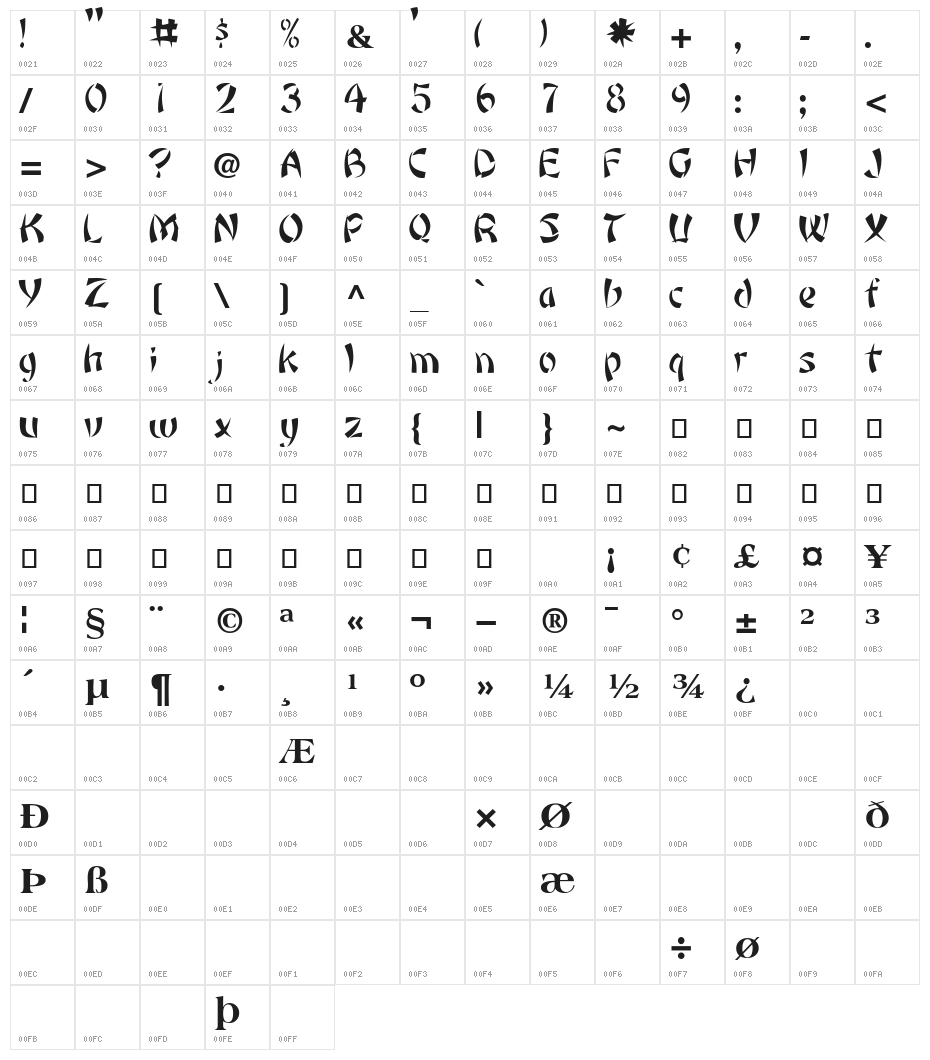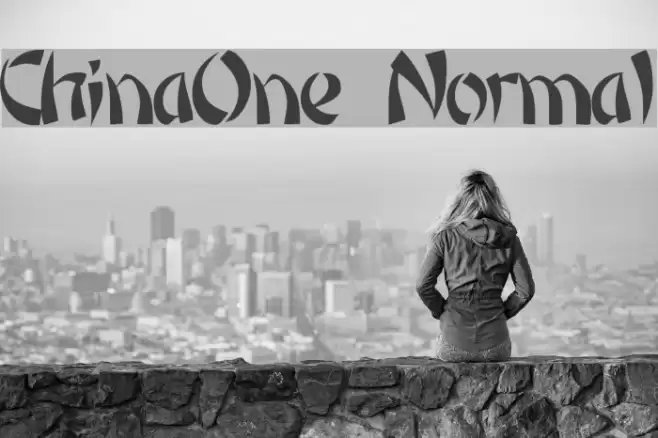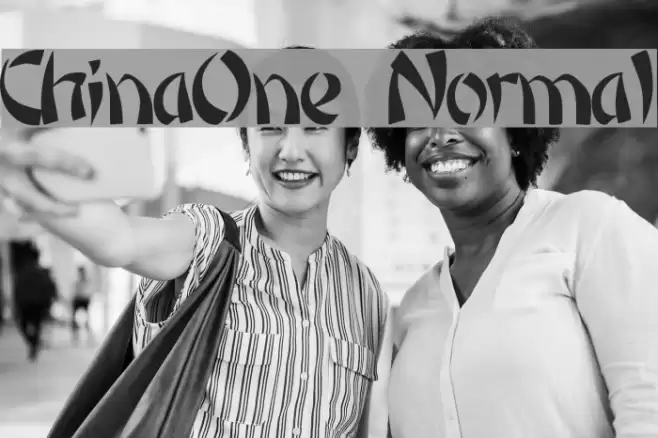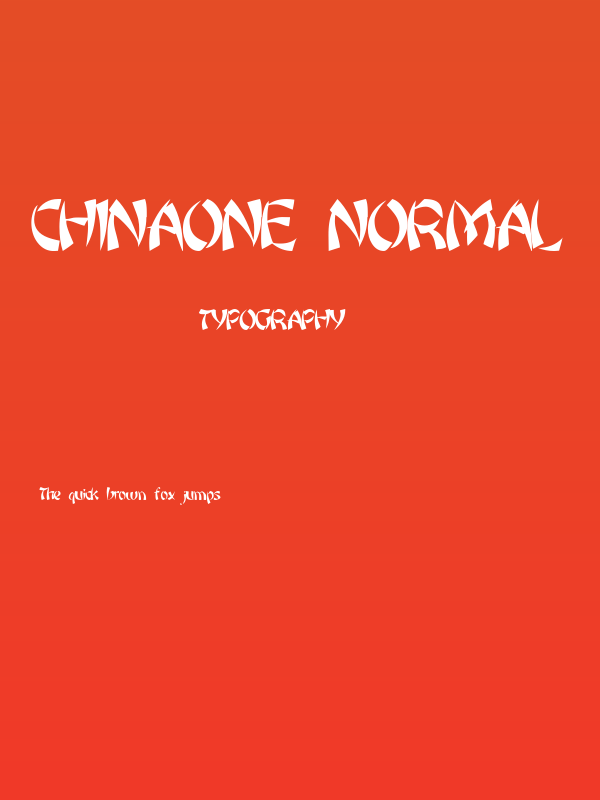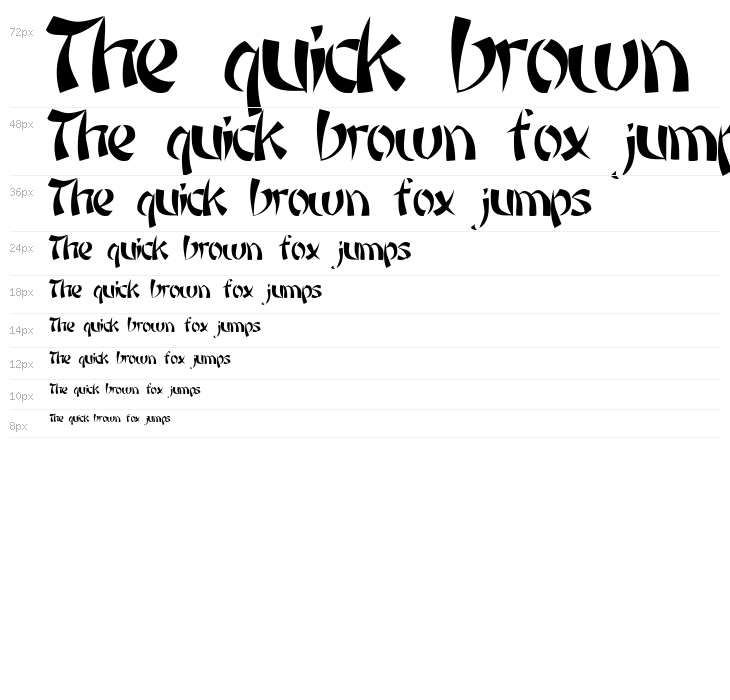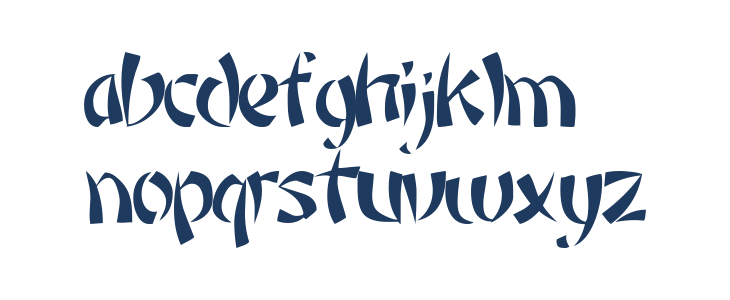
ChinaOne Normal Font
ChinaOne Normal Description
This font features a bold and dynamic style with sharp, angular strokes that give it a distinctly modern and artistic flair. The characters are crafted with a high contrast between thick and thin lines, creating a sense of movement and energy. The uppercase letters are particularly striking, with their dramatic curves and pointed edges, while the lowercase letters maintain a consistent flow and rhythm. The numerals and special characters are equally bold, ensuring a cohesive look across all text. This font's unique design makes it stand out, offering a blend of traditional calligraphic influences with a contemporary twist.
| Proposed Projects | Ideal for branding, posters, and artistic projects that require a bold and dynamic visual impact. |